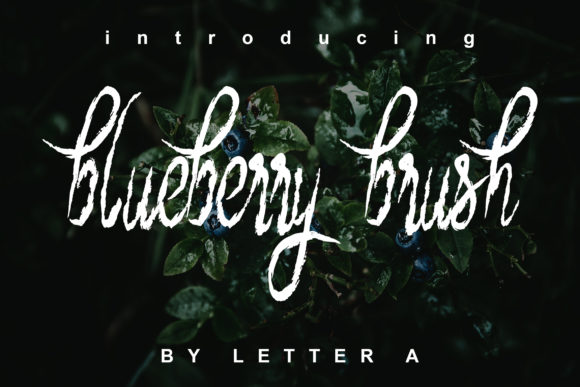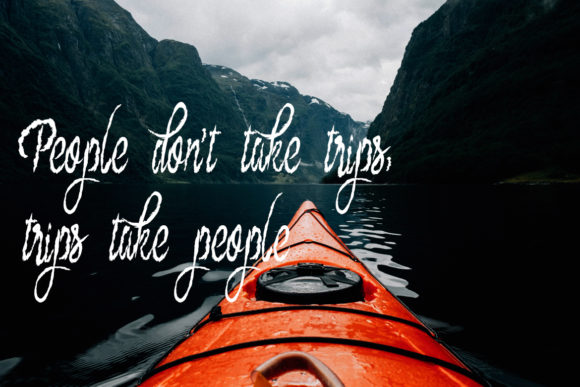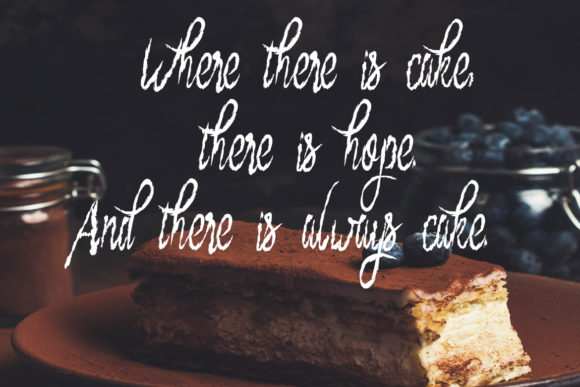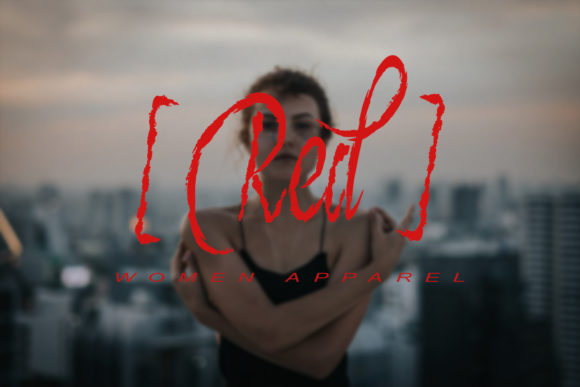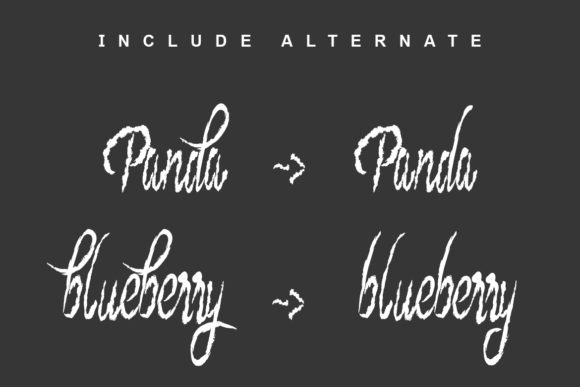
Blueberry Brush Font
About Blueberry Brush Font
The Blueberry Brush is an authentic calligraphy font with a natural touch. It’s a very versatile font that works great in large and small sizes.
It can be used for various purposes such as logos, wedding invitations, headings, t-shirts, letterheads, signage’s, labels, news, posters, badges etc